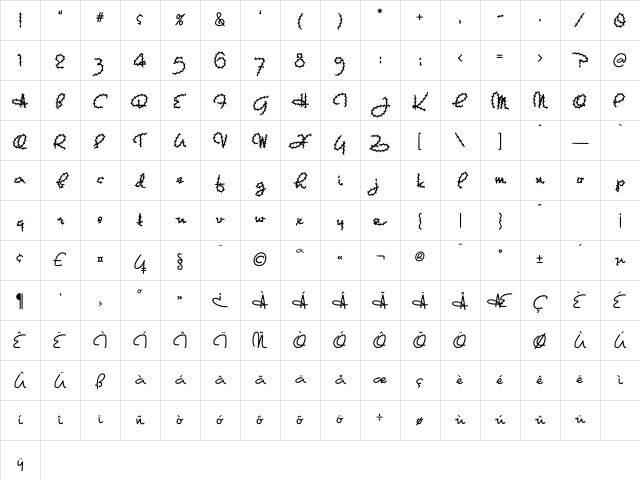
Prickly Regular
Design Context for Prickly
Prickly is a composed and adaptable typeface that performs quietly and consistently across a wide range of design contexts.
Pro Tip: Use Prickly in both headline and body roles to test its range before committing to a single application.